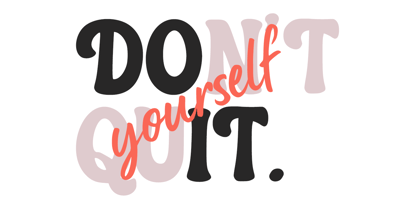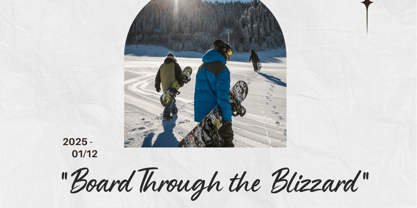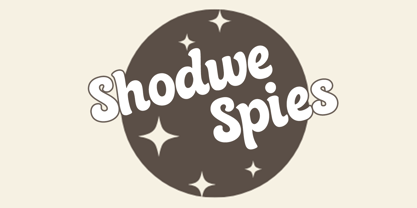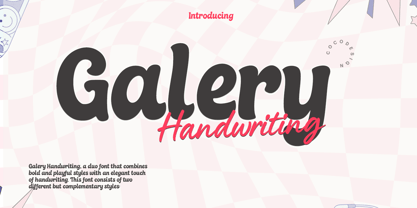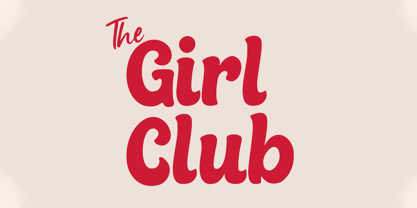
Galery Handwriting
The Galery Handwriting Font Family was designed by Muhammad Zaini and published by Cocodesign. Galery Handwriting contains 2 styles and family package options. More about this family
Galery Handwriting is a versatile duo font that combines a bold, playful display style with an elegant script touch. Designed to work harmoniously, both fonts can be used together or separately to create a wide range of creative and modern design applications.